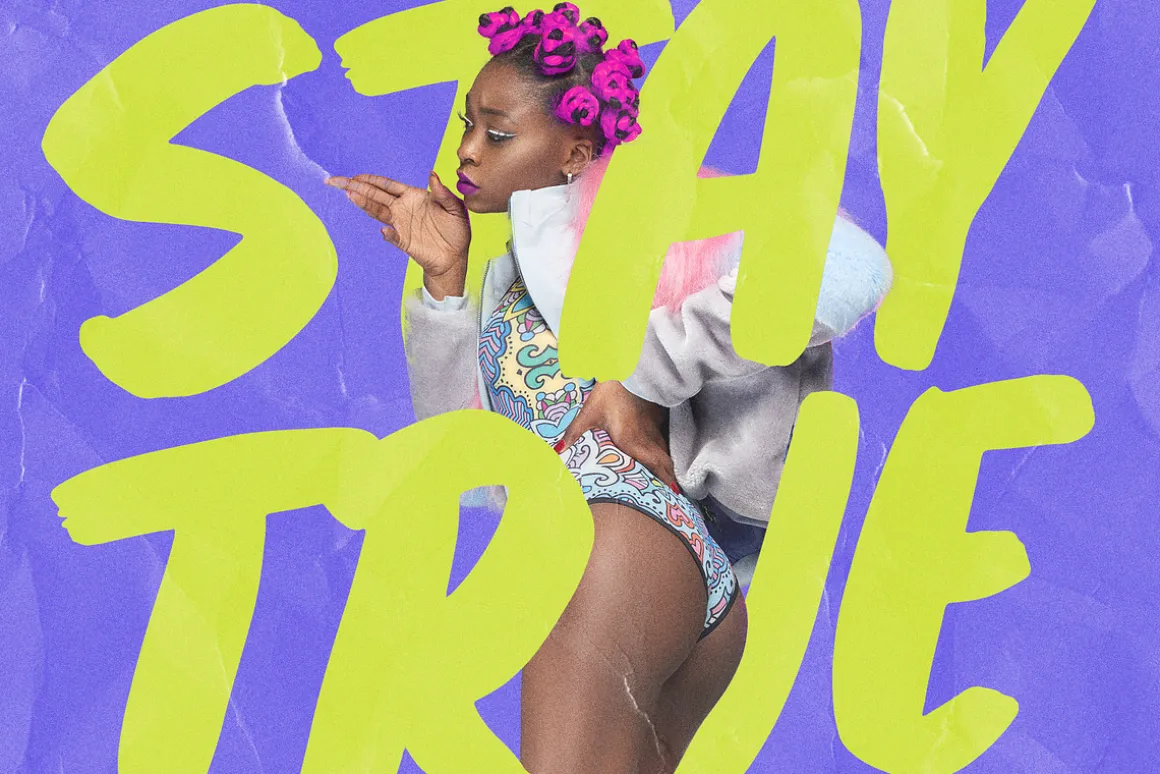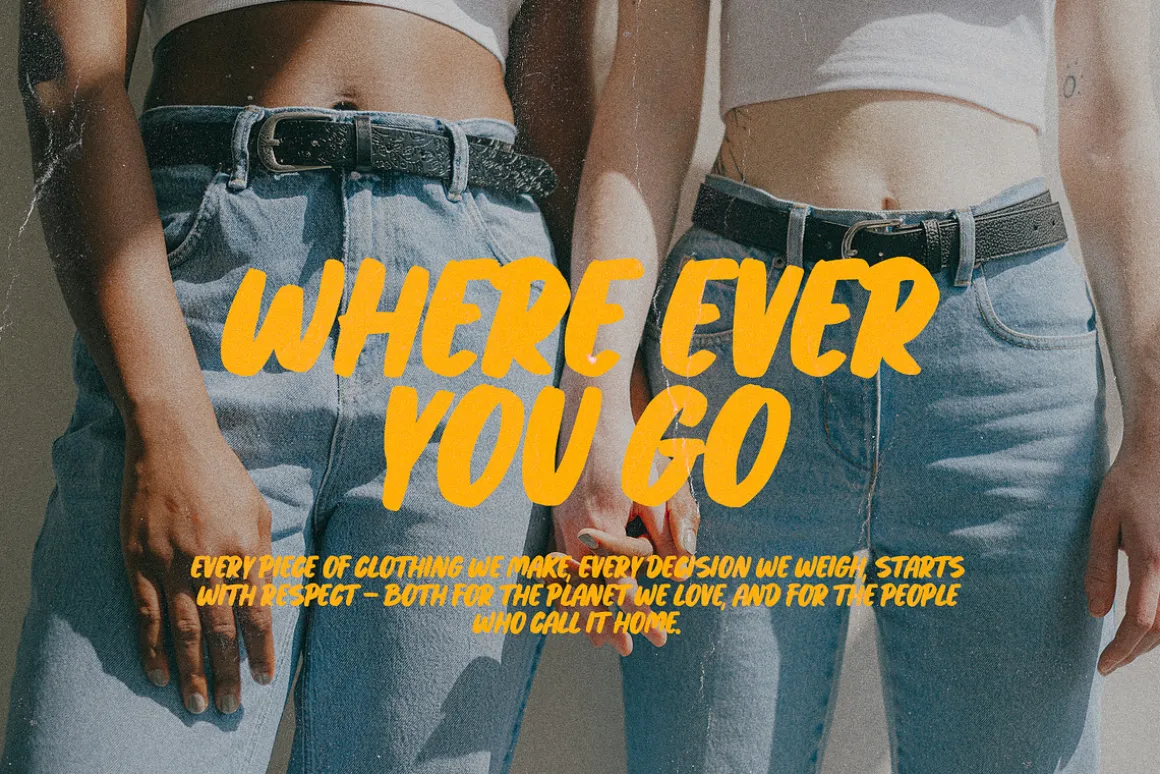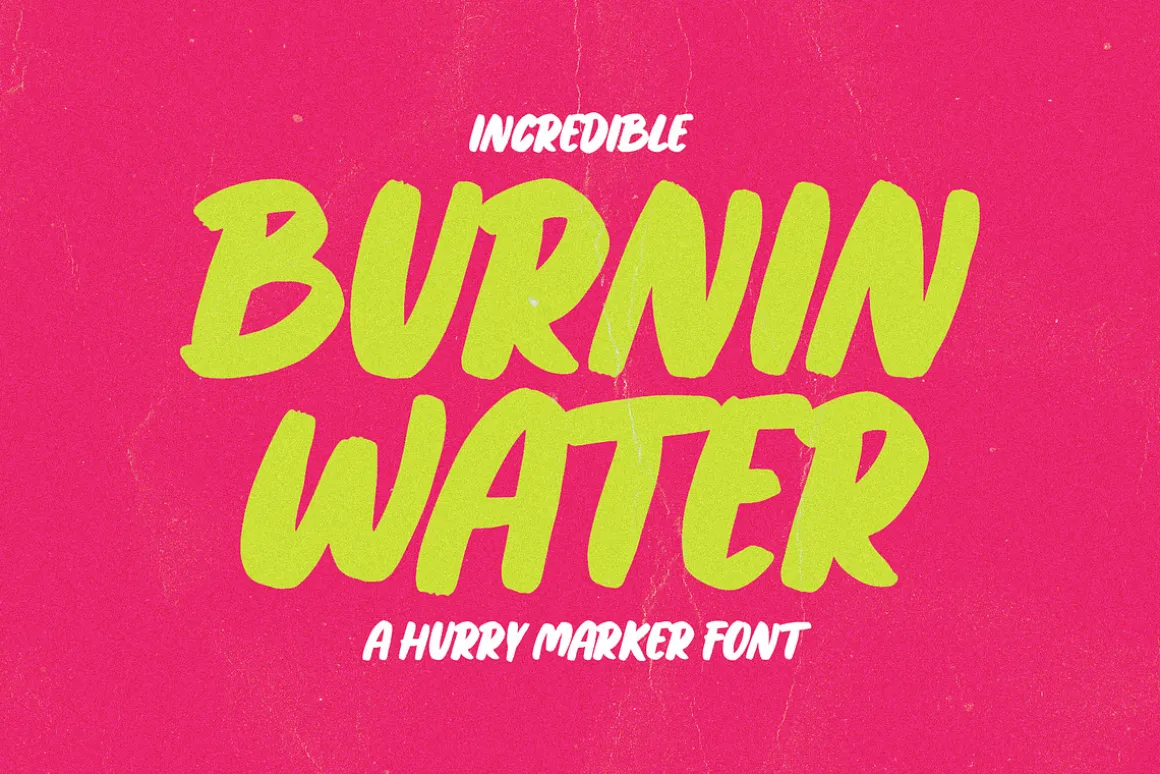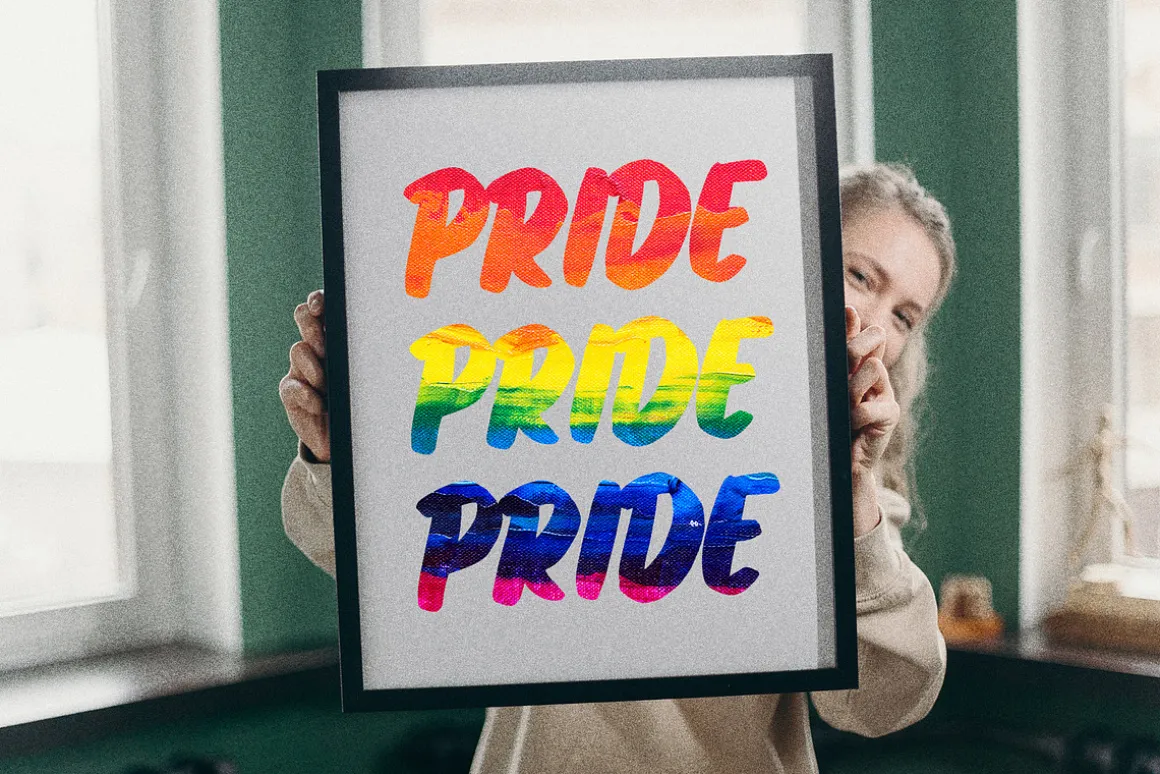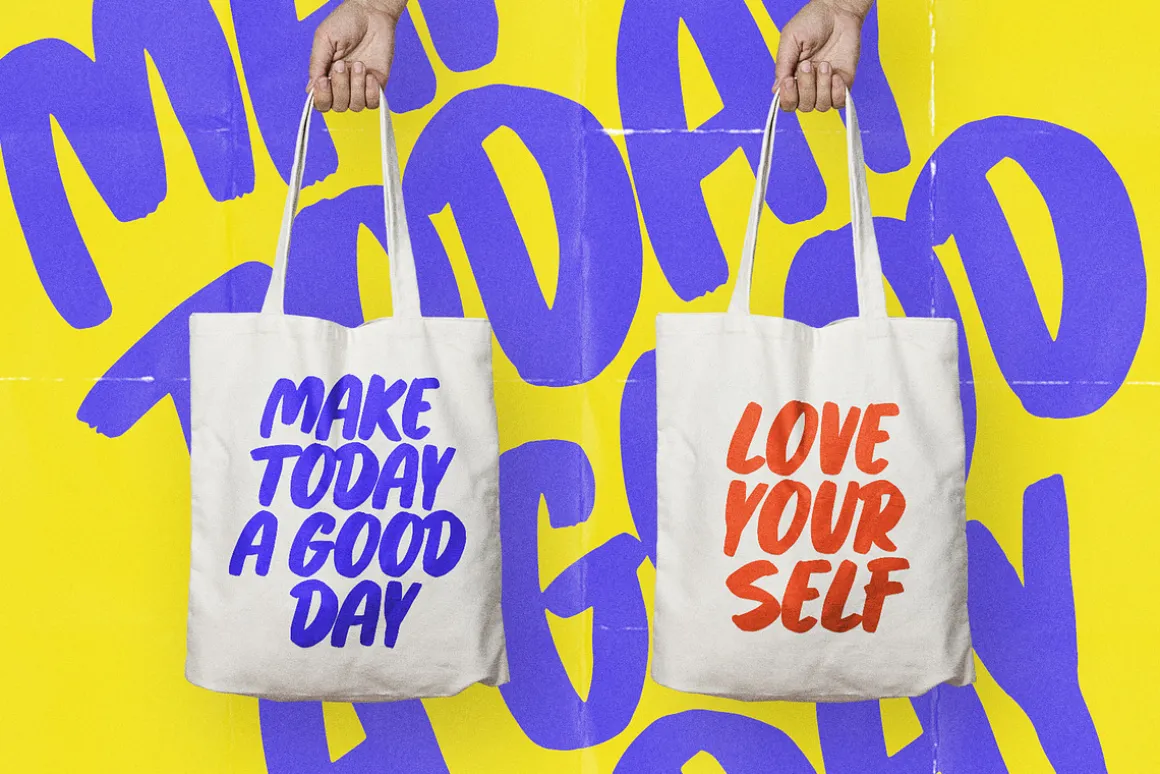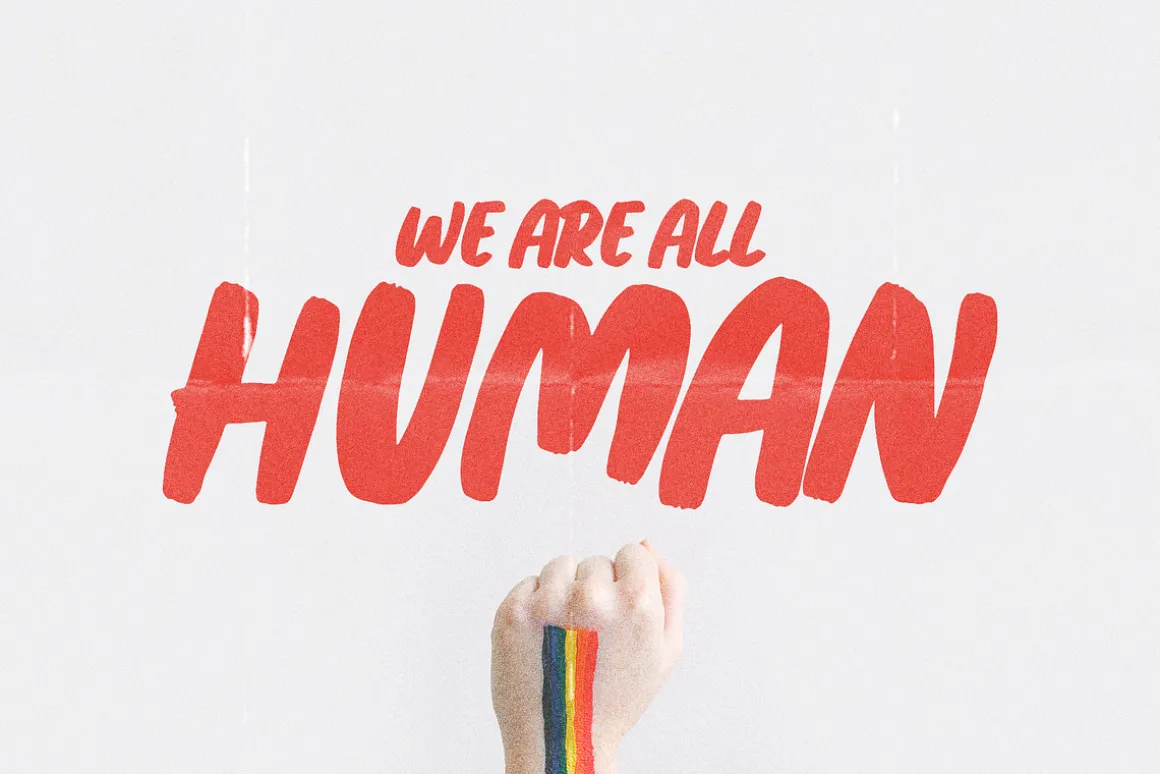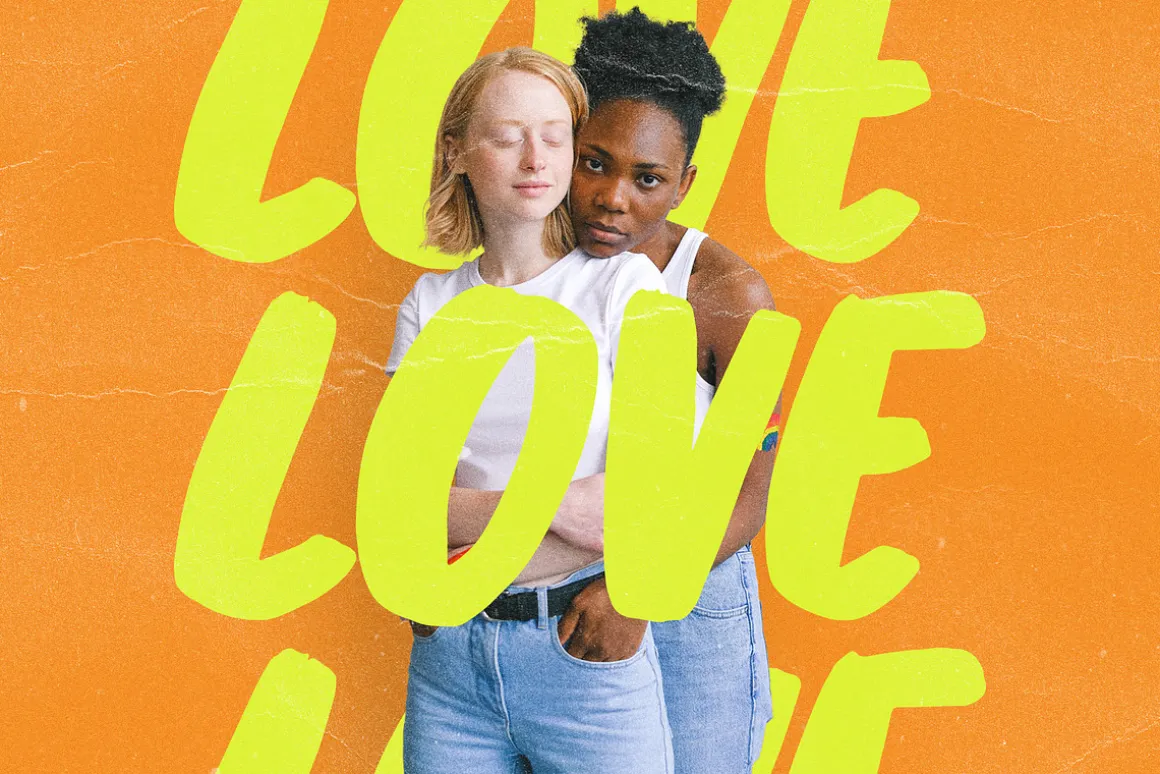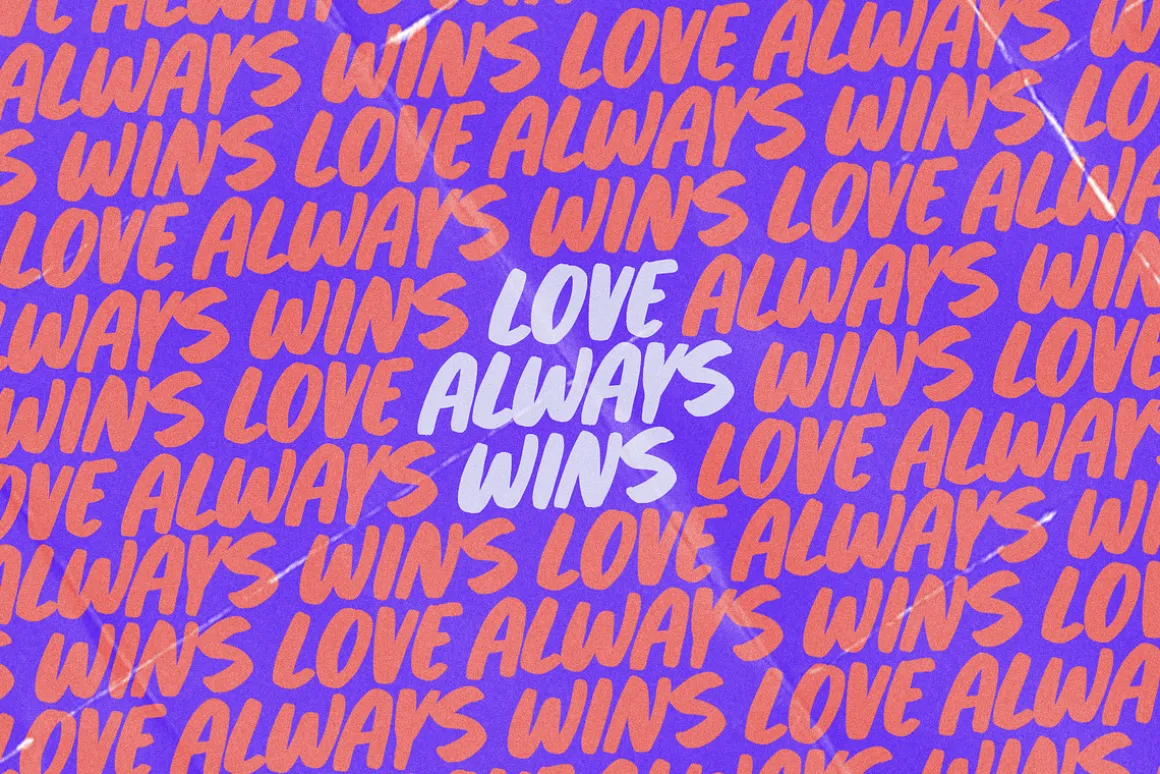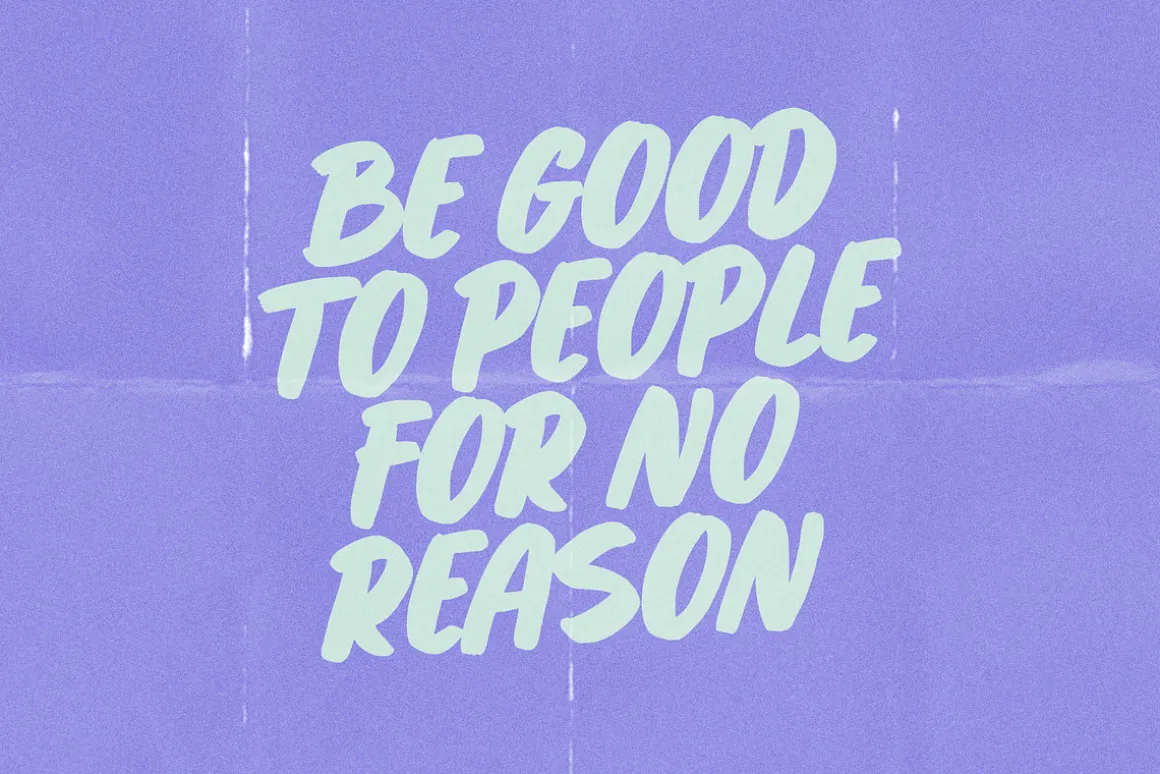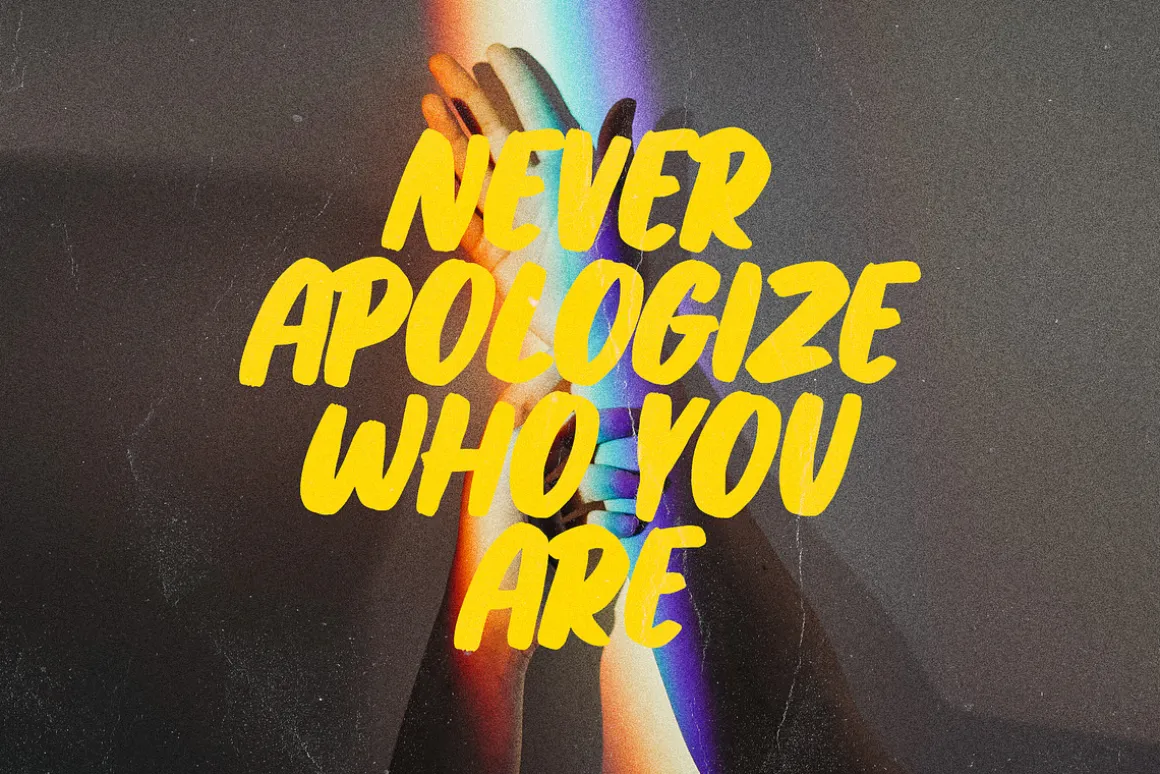
Burning Water – a fun and modern marker font. Ideal for creating bright and catchy designs.Clear lines, dense structure, playful mood. Bold font for bold projects